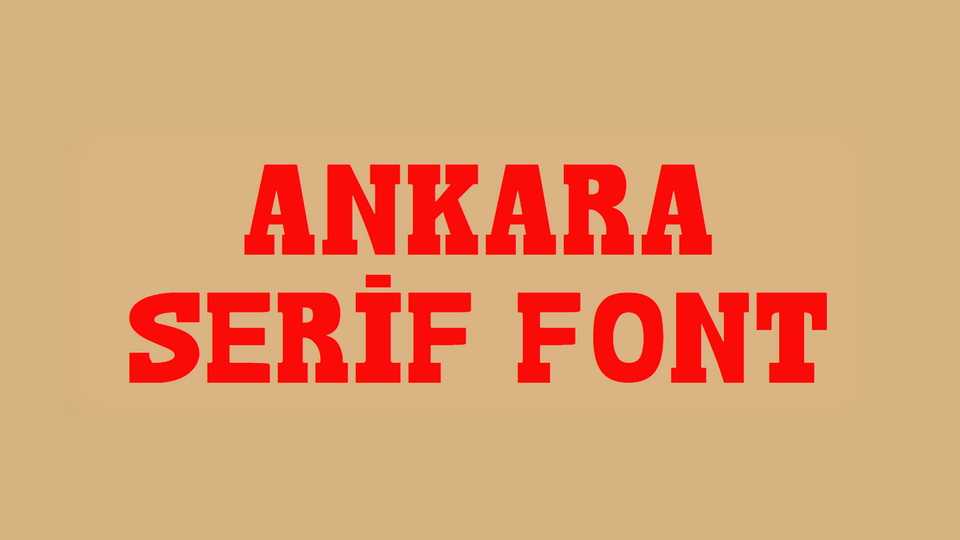
Download Ankara Serif font, a Turkish old school typeface inspired by Ankara city. Ankara Serif catches the vibe of 1930s Turkish magazine fonts.
Designer: Tuna Çağlar Gümüş